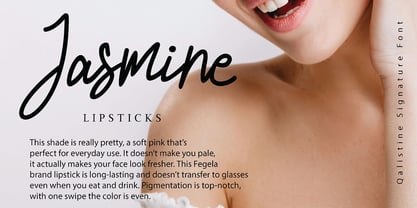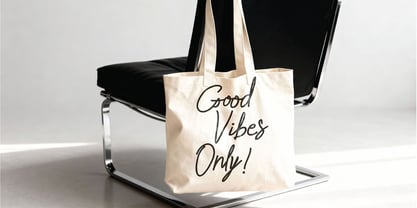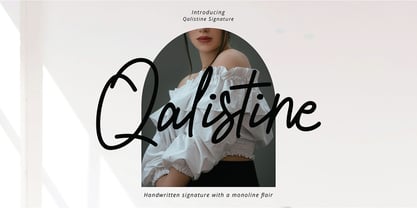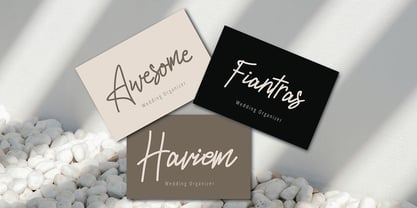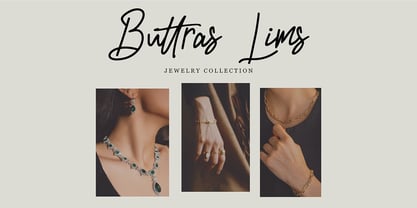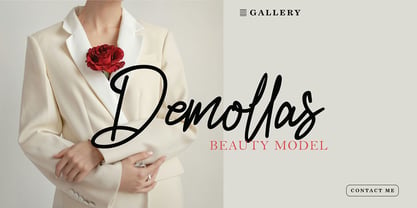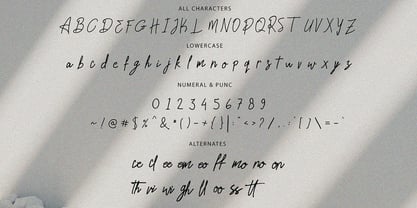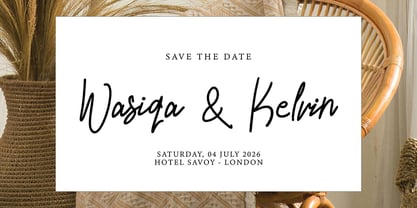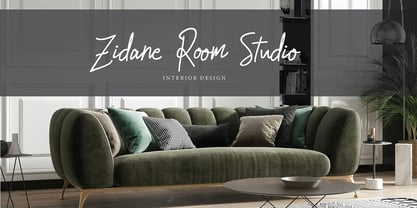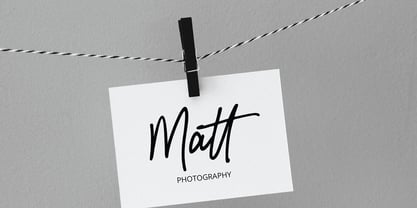
Qalistine signature
by Pointlab
The Qalistine signature Font Family was designed by Ferdiansyah and published by Pointlab. Qalistine signature contains 1 styles. More about this family
Qalistine Signature with a handmade Signature style, decorative characters and a dancing baseline! So beautiful on invitation like greeting cards, branding materials, business cards, quotes, posters, and more!!
Qalistine Signature Features :
Uppercase & Lowercase International Languange & Symbols Support Punctuation & Number PUA Unicode Range Standard Ligatures Discretionary Ligatures Stylistic Alternates Stylistic Set.